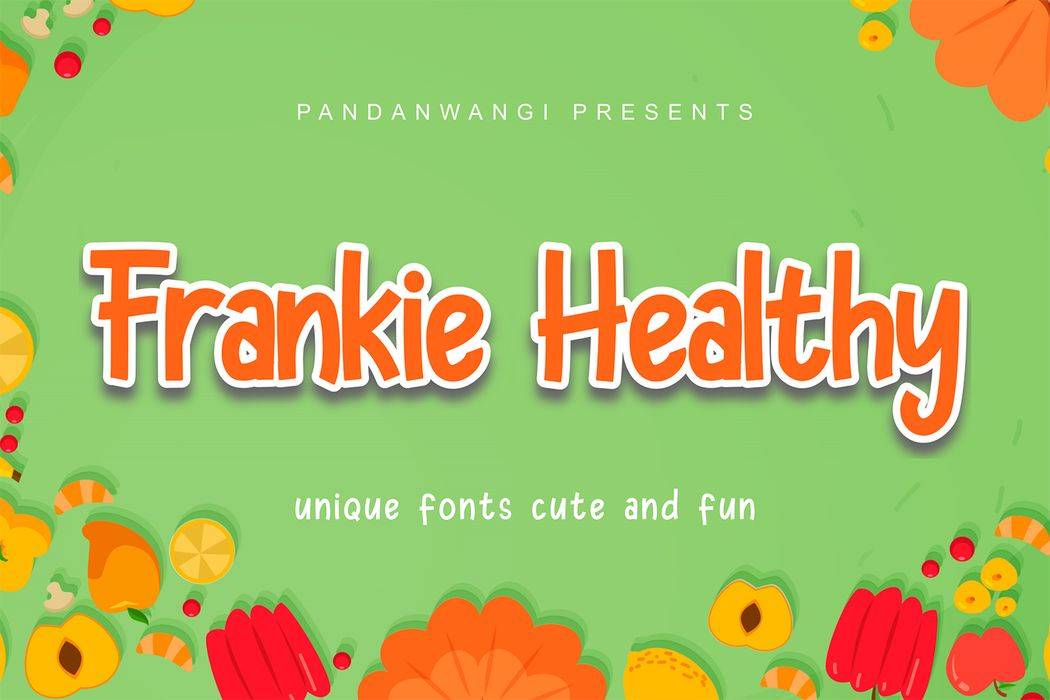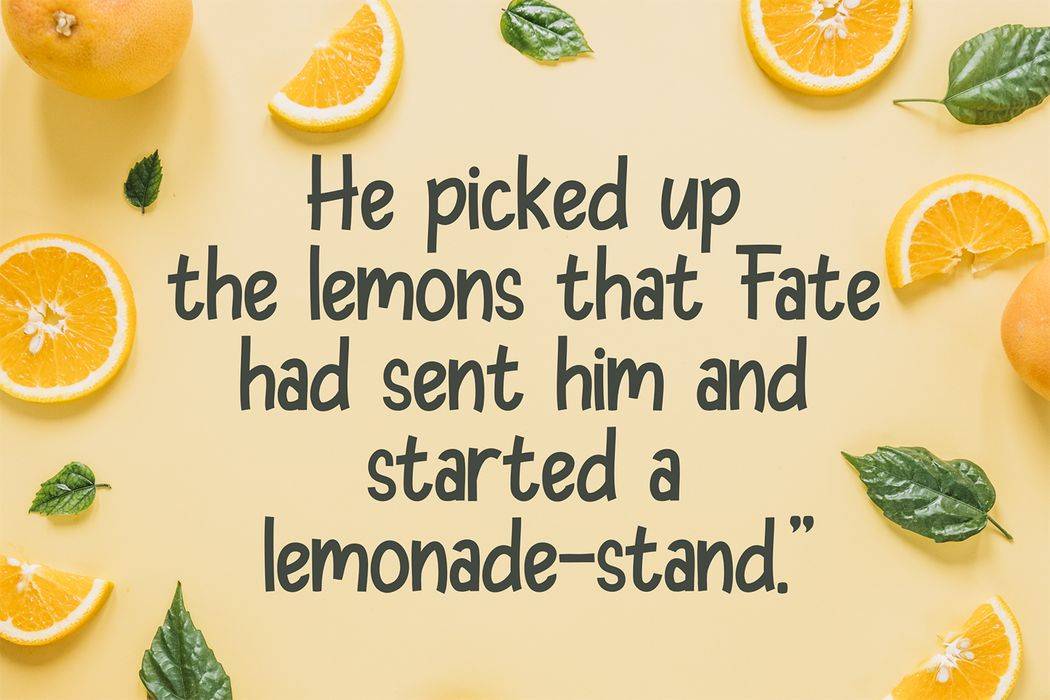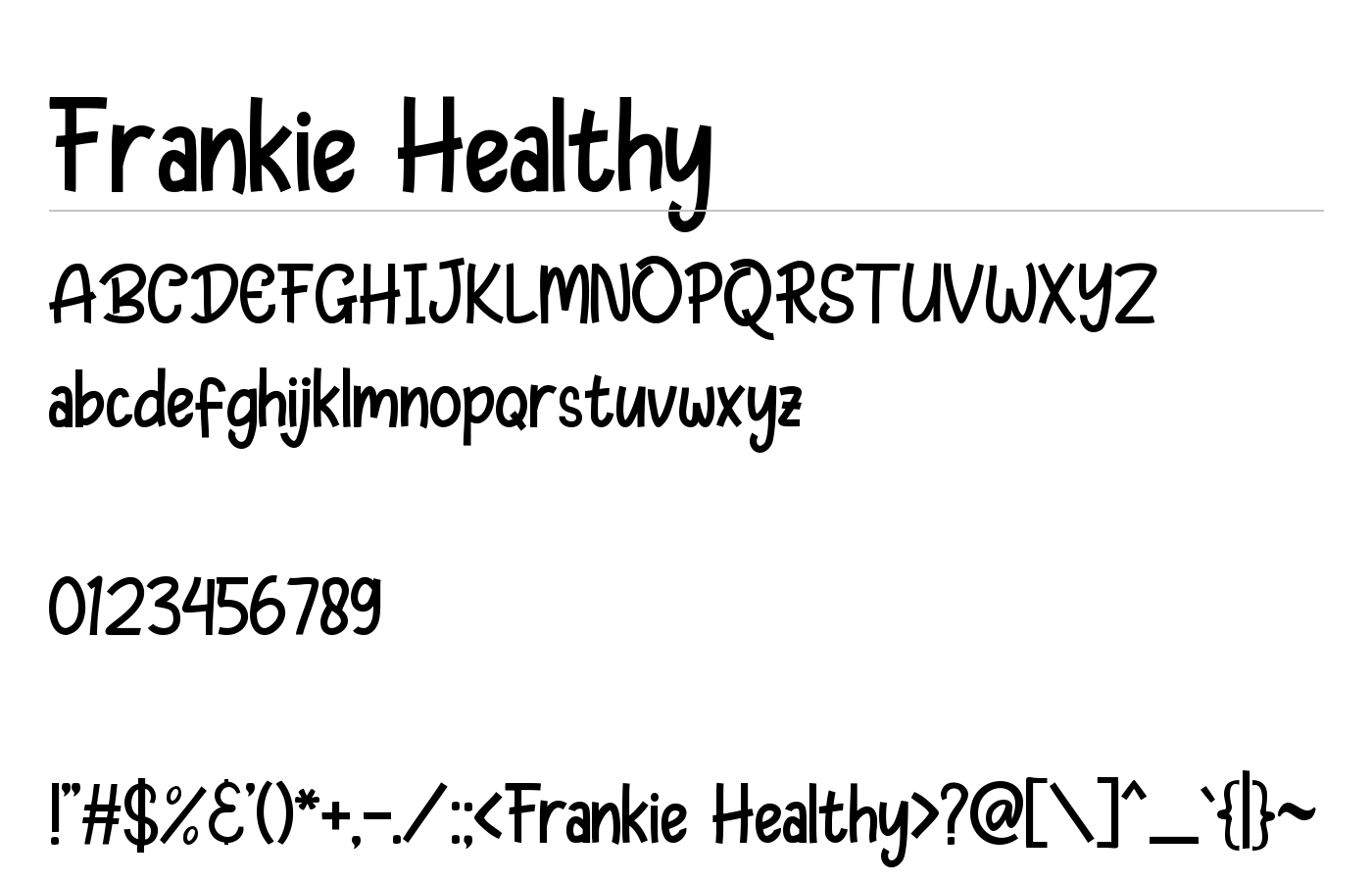
Frankie Healthy is a playful and casual handwritten sans serif font with a friendly, approachable vibe. Its irregular, slightly uneven strokes and lively letterforms create an informal look perfect for fun, creative projects like kids’ materials, lifestyle branding, and informal posters. This font works well when you want to add personality and warmth without sacrificing readability.
Frankie Healthy Font
About Frankie Healthy Font
| Font family | Frankie Healthy Font |
| Release date | 2020-10-01 |
| Designer | Pandanwangi 2020 |